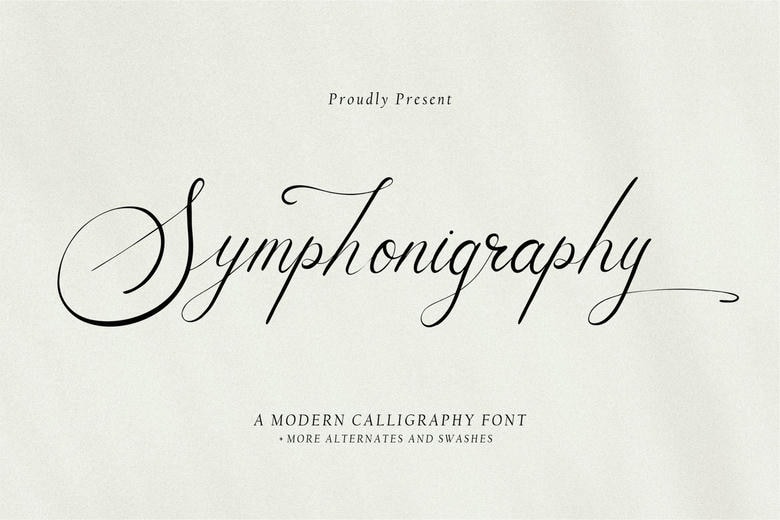
Symphonigraphy Font
Symphonigraphy feels equally charming and elegant font. Symphonigraphy is perfect for product packaging, logo, invitation, stationery, branding project, label, photography, watermark, megazine, social media post, wedding, or just used to express words above the background.
Symphonigraphy Calligraphy Script Font